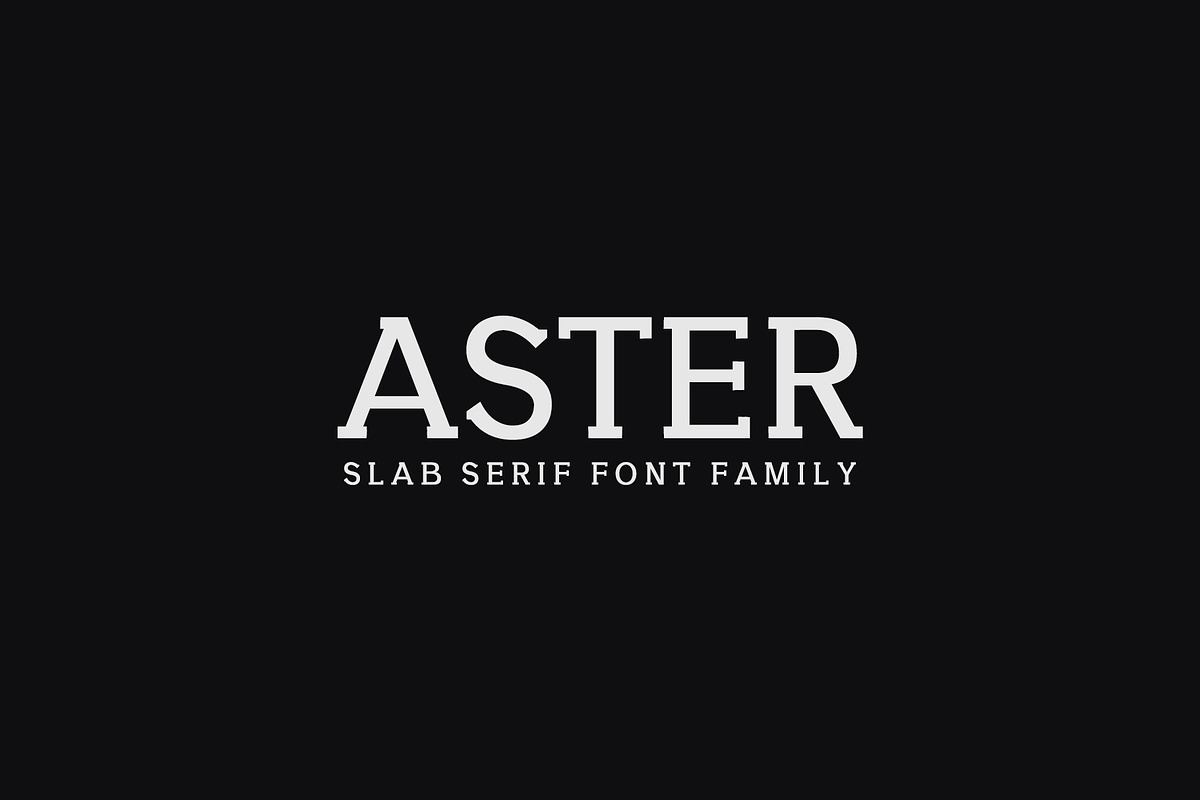
Aster Slab Serif 9 Font Family Free Download is a versatile and powerful typeface collection that combines the boldness of slab serifs with a modern and elegant design. With 9 unique styles, this family is perfect for a wide range of design projects, including branding, editorial design, websites, packaging, and more.
Each style in the family has been carefully crafted to provide both readability and personality, allowing you to create cohesive, professional designs with ease. Whether you're working on a corporate identity, advertising campaign, or creative project, Aster Slab Serif adds strength and sophistication to your typography. Aster Slab Serif 9 Font Family Free Download lets you explore the full range for personal use before purchasing a commercial license.
Elevate your design work with Aster Slab Serif — the font family that offers boldness, elegance, and flexibility.